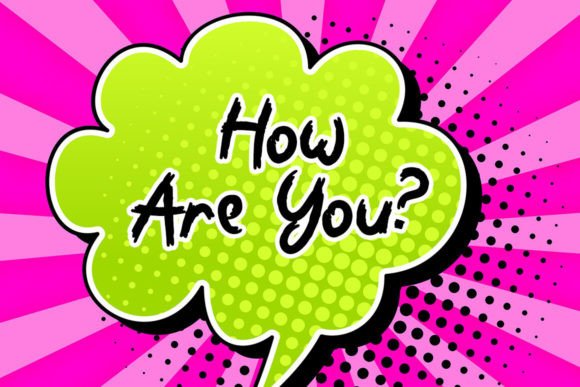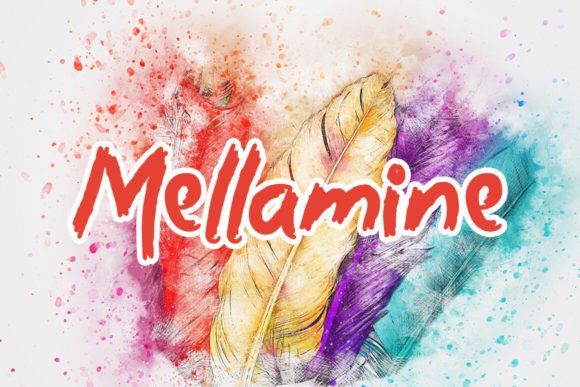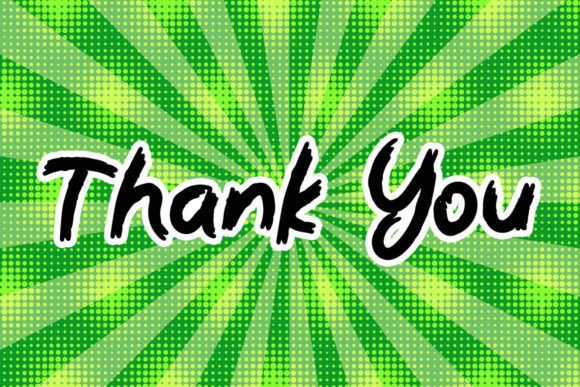
Unleash Your Creativity with the Perfect Font
Do you remember that moment when you stumbled upon the perfect color palette for your project, and everything just clicked? The excitement, the thrill, the sense of accomplishment? That’s what we’re about to talk about – the magic of the right font. Imagine being able to elevate your designs, make them stand out, and leave a lasting impression on your audience.
Enter Brush Hours Font, a modern and stylish font designed to take your creative projects to the next level. This versatile font is perfect for websites, social media, banners, advertisements, brochures, invitation cards, and more. Whether you’re a seasoned designer or just starting out, Brush Hours Font is an invaluable asset that will help you create high-quality designs that speak volumes about your brand.
Brush Hours Font Key Features
- Unique Characteristics: The Brush Hours Font features a distinctive hand-drawn, brush-style design that gives it a warm and organic feel, making it perfect for creative and artistic projects.
Designer Review: Brush Hours Font
Overall, I think the Brush Hours Font has some great qualities, but also some limitations that might make it less suitable for certain projects. ✨
- Unique Handwritten Feel: The font has a distinct, handwritten feel that can add a personal touch to your designs.
- Highly Expressive: The Brush Hours Font is great for conveying emotions and personality through typography.
- Good Legibility: Despite its handwritten feel, the font is still easy to read, making it suitable for body text.
However, I do have some concerns about the font’s limitations. ⚠️
- Limited Character Set: The font’s character set is somewhat limited, which might make it difficult to use for longer texts or for projects that require specific characters.
- Not Ideal for Small Text: The font’s bold lines and expressive feel make it less suitable for small text sizes, where legibility becomes a concern.
- Not a Professional Font: While the Brush Hours Font is great for creative projects, it’s not a font that I would recommend for professional or corporate designs.
Overall, I think the Brush Hours Font is a great choice for creative projects or designs where a unique, handwritten feel is desired. However, it might not be the best choice for more formal or professional projects.
The Brush Hours Font is ideal for creating custom titles, headings, and captions for presentations, documents, and social media graphics. It’s also great for adding a personal touch to digital products, such as e-books and infographics.
Remember to experiment with different font sizes, colors, and styles to get the most out of this unique font.